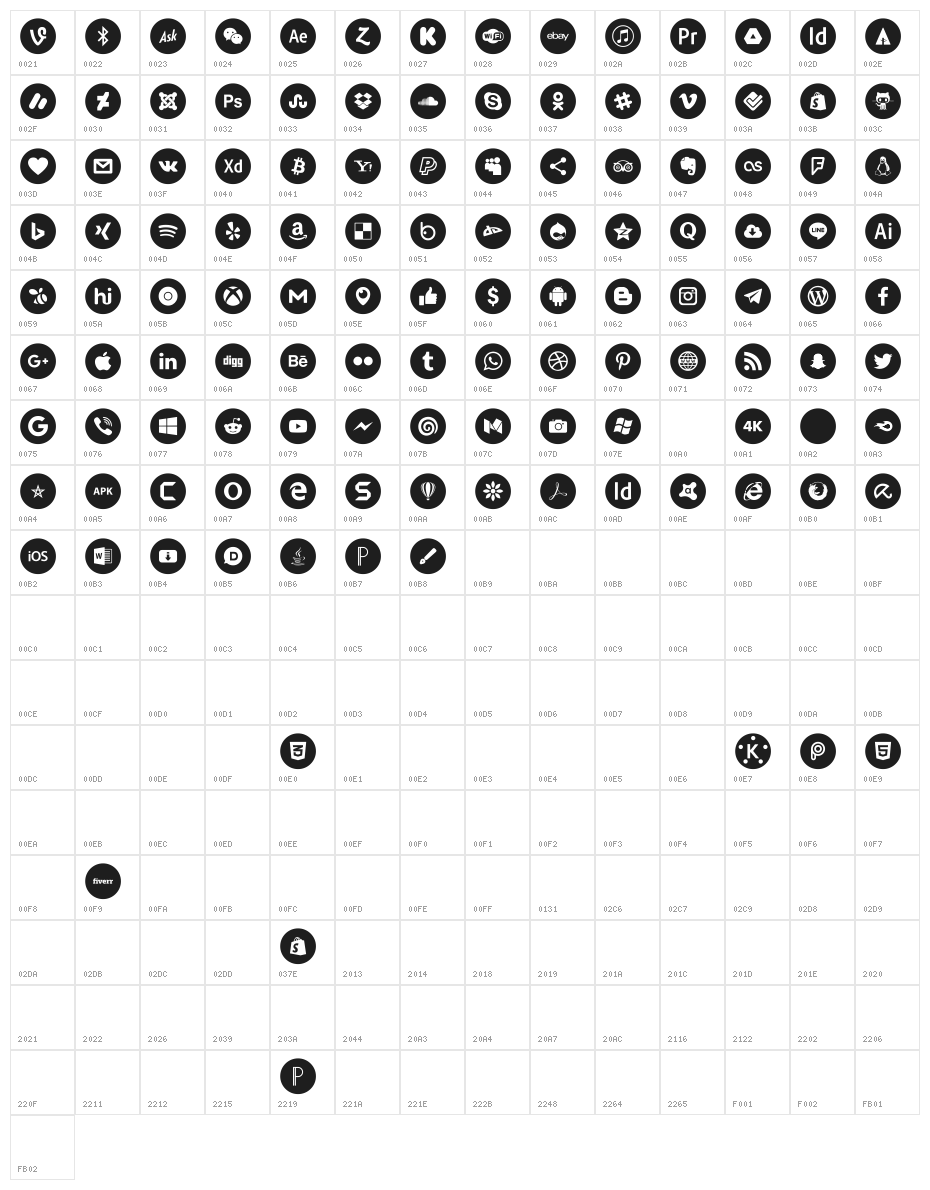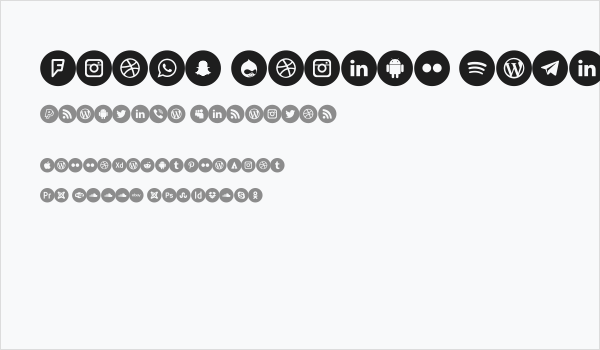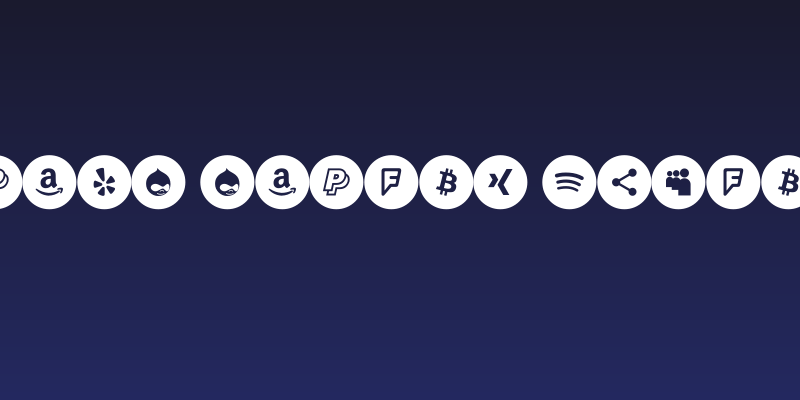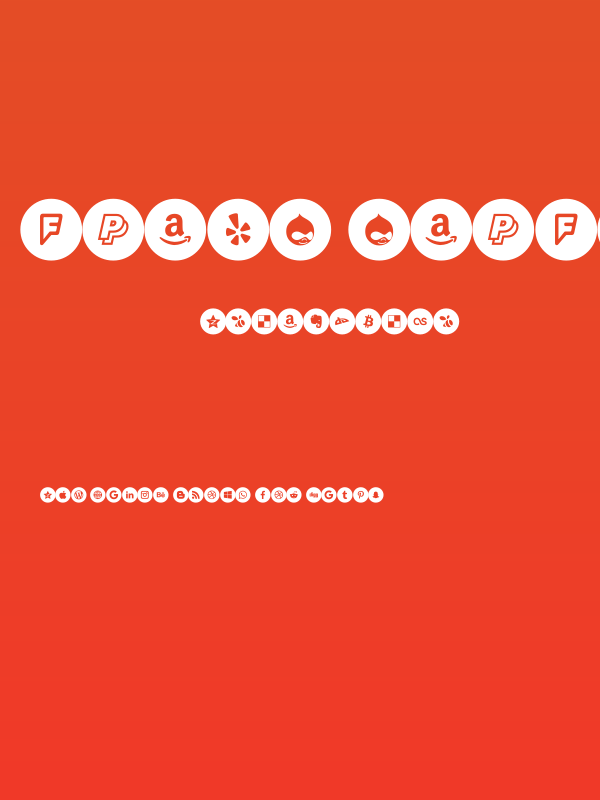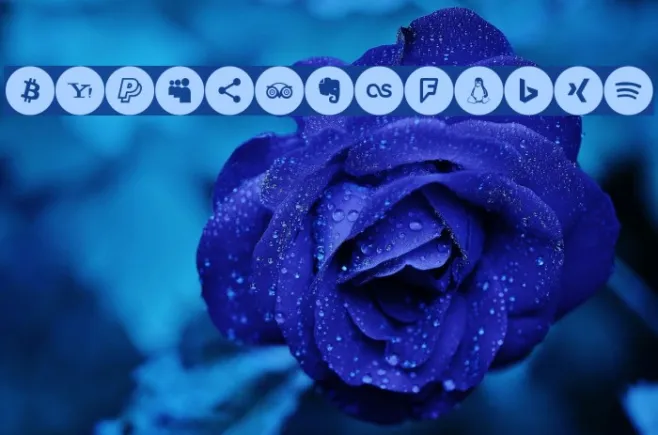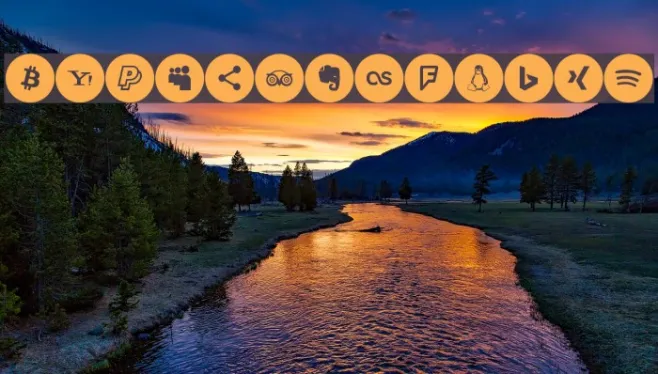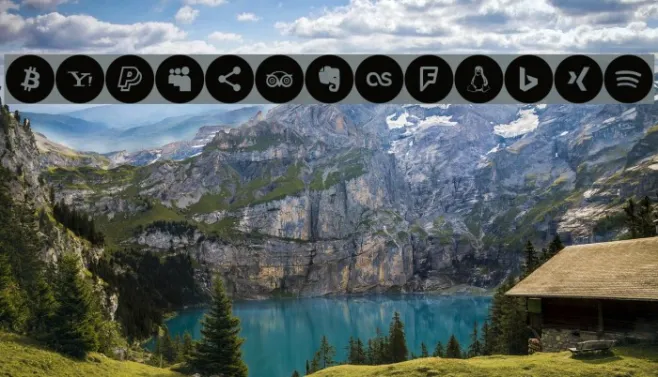
Icons Social Media 6 Font
Icons Social Media 6 Description
A collection of black circular icons featuring white logos of various social media platforms and digital services, designed with simple, bold, and recognizable symbols.
| Overall Style | Modern, Minimalistic |
| Use Case | Icons for social media links, buttons, and digital branding. |
| Proposed Projects | Use in websites, mobile apps, digital marketing materials, and social media integration. |